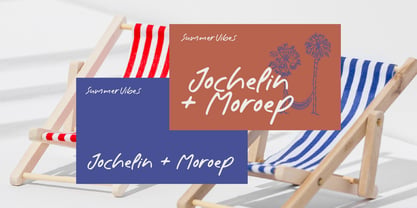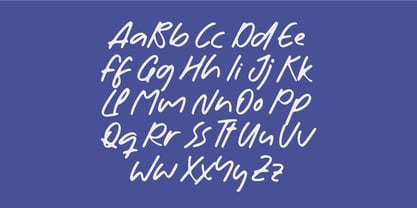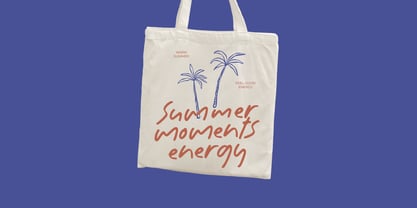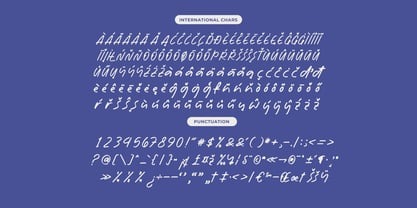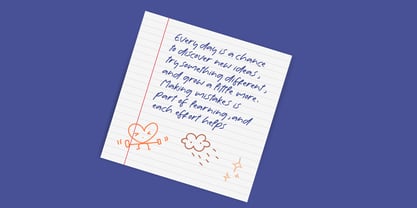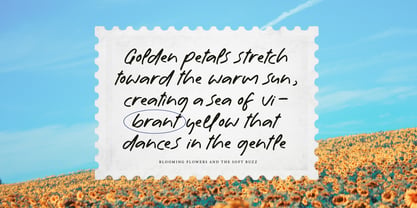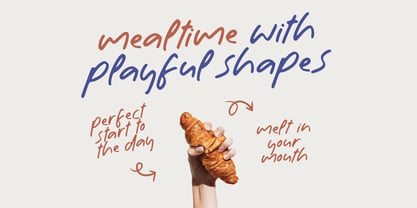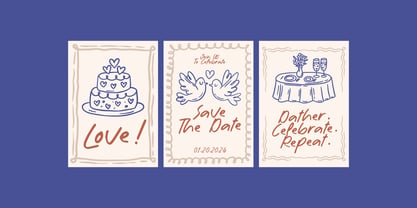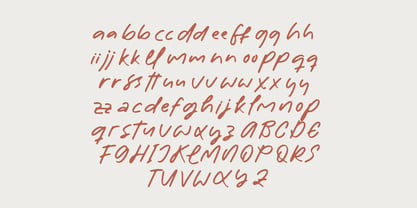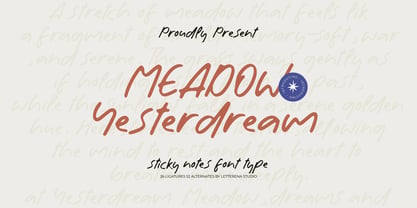
Meadow Yesterdream
The Meadow Yesterdream Font Family was designed by Heru Utama Putra and published by Letterena Studios. Meadow Yesterdream contains 2 styles and family package options. More about this family
Meadow Yesterdream is a warm, handwritten sticky-notes font crafted with soft curves, natural strokes, and a carefree flow that feels personal, nostalgic, and gently expressive—perfect for journaling aesthetics, cozy branding, mood boards, planners, quote posts, children’s projects, packaging, and any design that needs an approachable handwritten voice. Its lightly imperfect rhythm brings an authentic note-taking charm, while the included ligatures and alternates add smooth variety for more natural handwriting results, making Meadow Yesterdream an easy go-to choice for modern creatives seeking a friendly, intimate, and visually comforting handwritten typeface